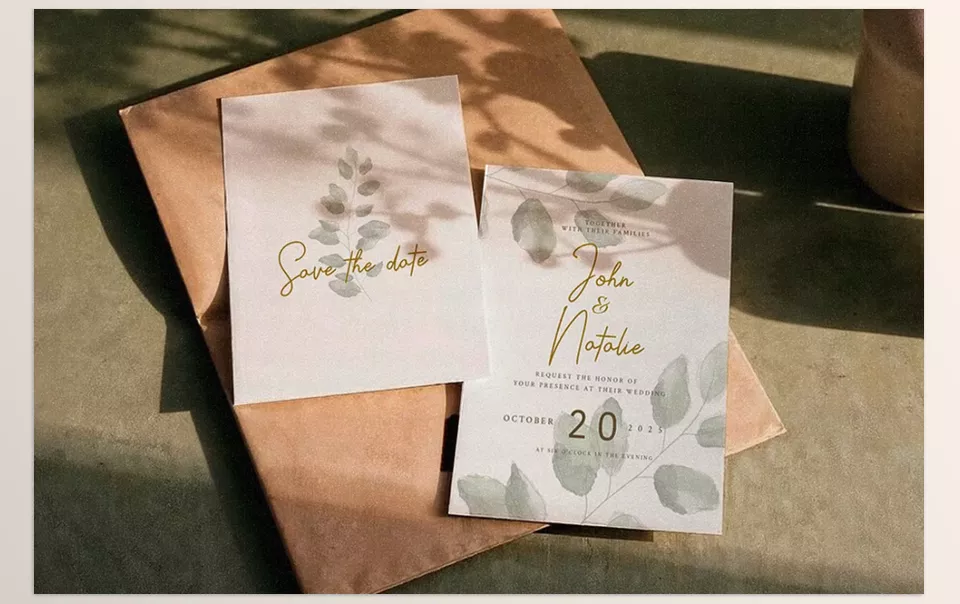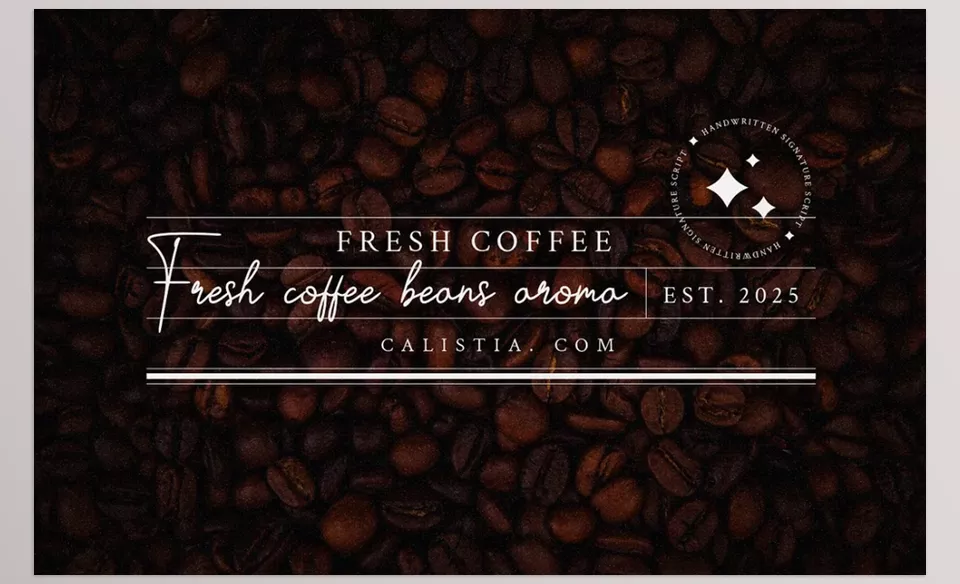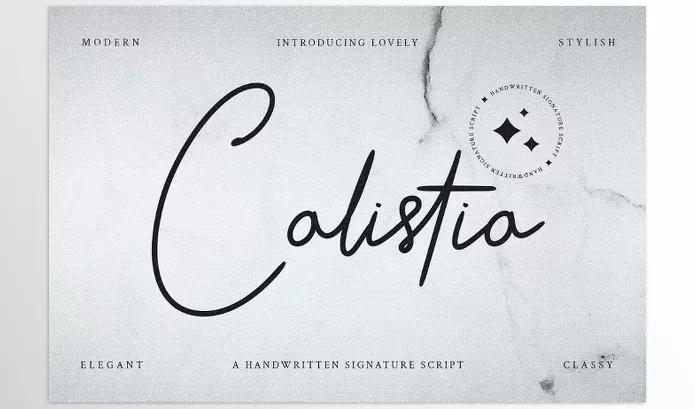
Calistia Signature Font is ideal for any kind of design due to its elegant and signature-natural script. The signature-like designs are smooth and flowing which makes this font suitable for charming projects which require handwritten elements on them, be it in branding, logos, wedding invitations, etc.
Hasbi Creative – Calistia Signature Font Features
• Elegant Handwritten Style: Signifies signature styles of writing.
• Versatile Use: Great for luxury packaging as well as for logos, branding and invitations.
• Modern Minimalism: Personalization features give a breeze to minimalistic designs.
Preview Calistia Signature Font
Image 1: Experience the elegance of handwritten charm, elevating your designs to new heights.
Calistia Signature Font - Experience the elegance of handwritten charm, elevating your designs to new heights.
Image 2: Bring sophistication to your project with this exquisite and versatile font.
Calistia Signature Font - Bring sophistication to your project with this exquisite and versatile font.